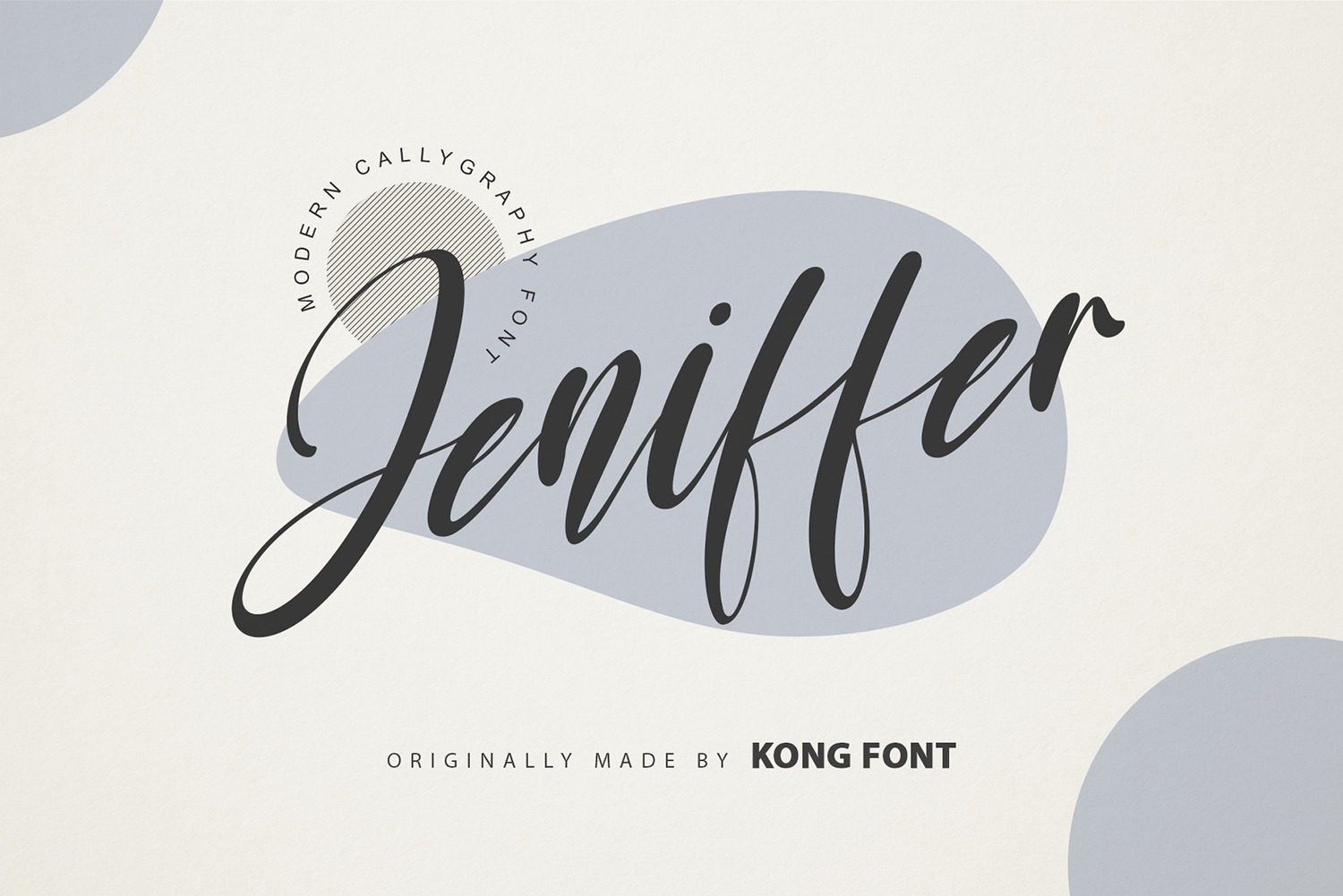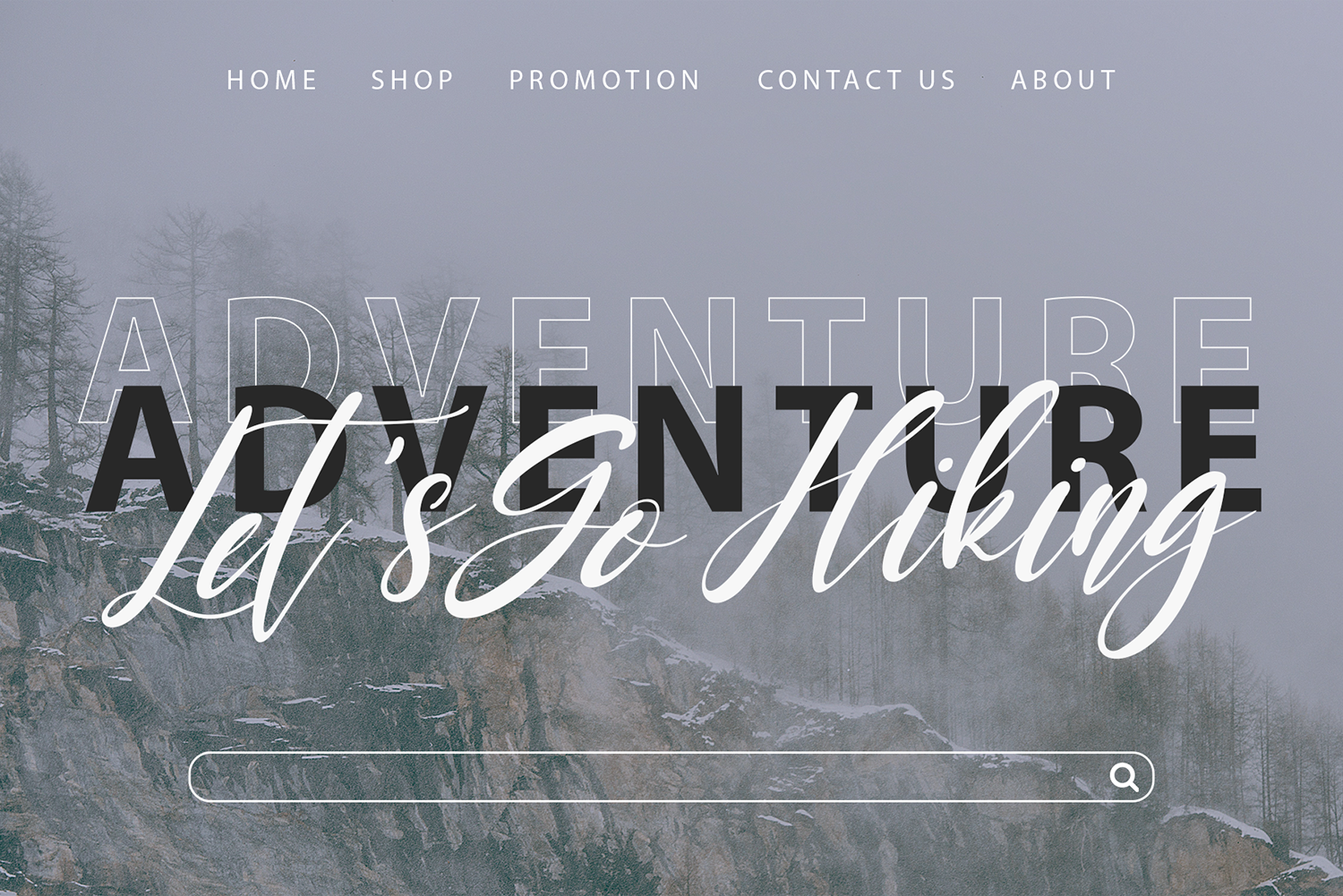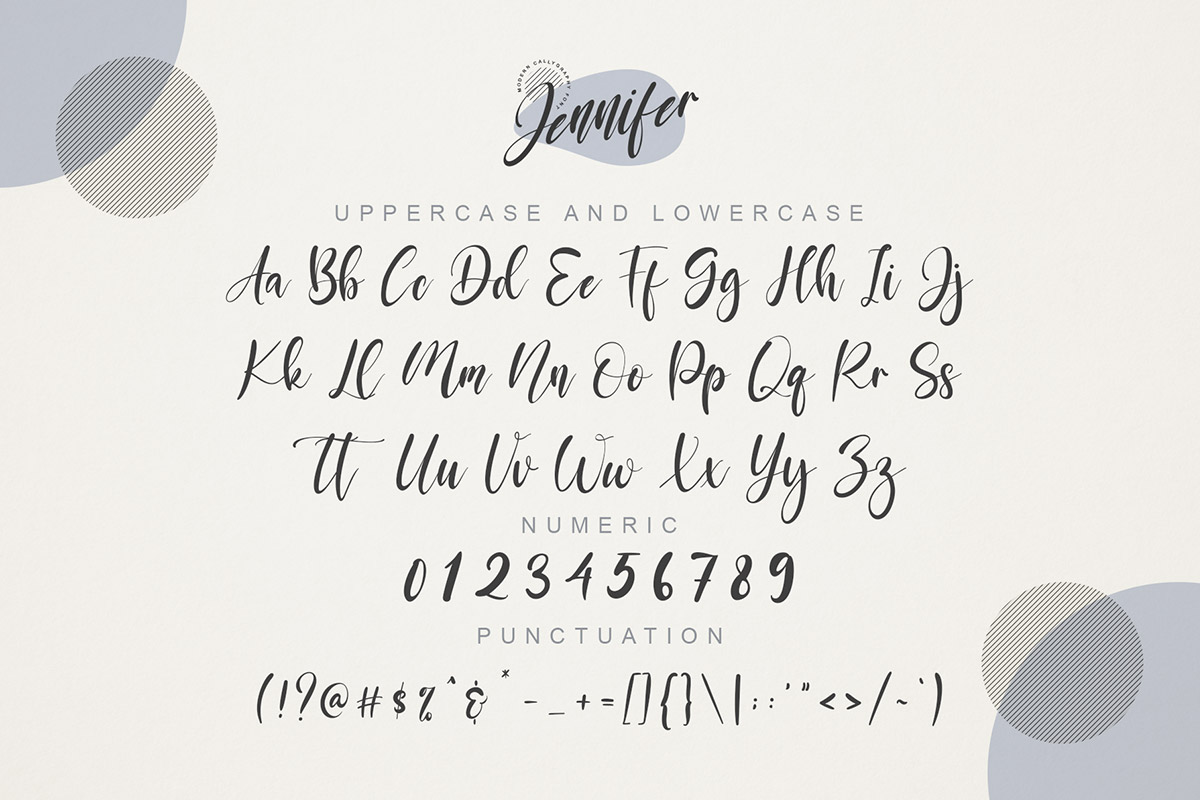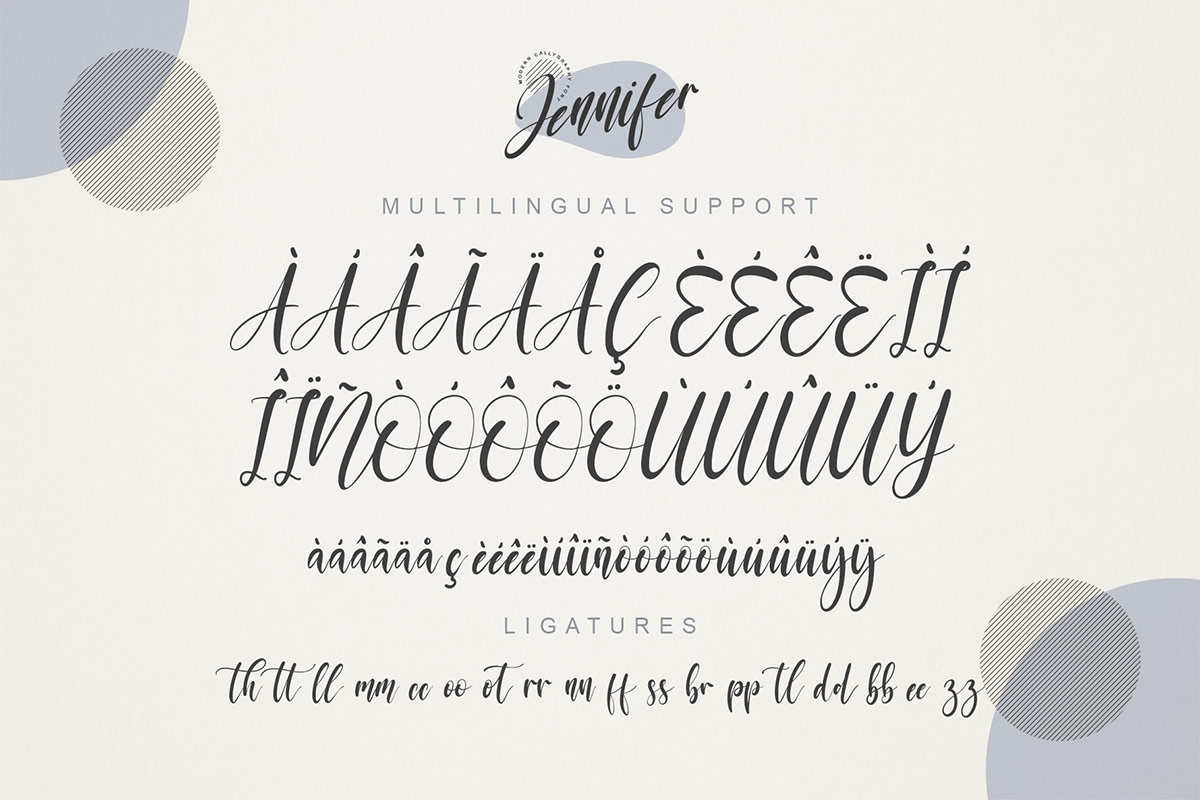
Jeniffer Free Font
Jeniffer Free Font is a contemporary and playful handwritten script font, perfect for crafters and designers alike. This font is fully compatible with popular design tools such as Photoshop and Silhouette Design Studio, making it incredibly versatile for your creative projects.
Embrace the delightful playfulness of “Jeniffer” as it adds a touch of whimsy to your designs. Whether you’re working on crafting, branding, invitations, or any other creative project, this font is sure to bring a unique charm to your work. This free typeface was designed by a talentedΒ Kong Font. If you like it don’t forget to check out the full version.